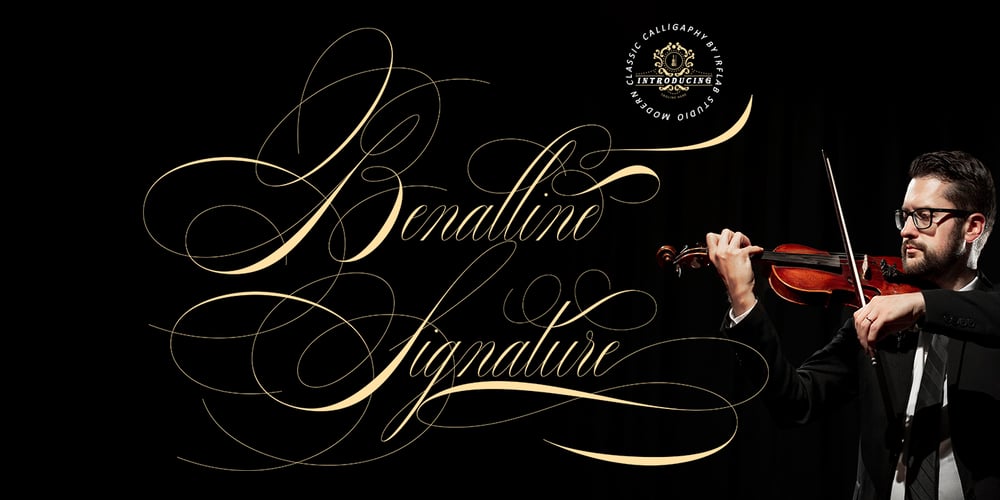
Benalline Signature
Benalline Signature font
Benalline Signature Font Family was designed by M Irvan Syouqi S and published by IRF Lab Studio. Benalline Signature contains 3 styles and family package options. Hello I’m back with a new product, this is Benalline Signature, this is a classic Calligraphy style font, vintage and retro but still looks elegant, luxurious and beautiful. Benalline Signature is a little different from some of the existing fonts, I made a slightly different shape and added an alternative character with a more decorative shape and also I added a special Ornament and swash made especially for the Benalline Signature.Thank you!